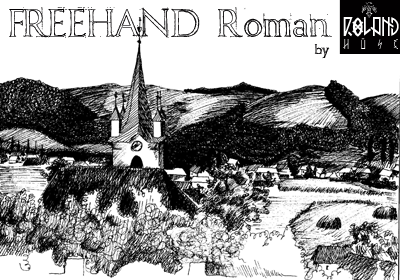
Preview and download Freehand Roman Font. Created by Runes & Fonts in Fancy Eroded styles with Free for personal use license.
FREEHAND ROMAN is a handdrawn Roman font I made as a homework back in 1994. Avasi High School. The font is free for personal use only. If you need extra character or numbers created,contact me at myhandwritings@gmail.com Also feel free to drop me a line in case of questions or feedback.Mostly in case of any problems with the characters, kerning, installation etc. That would also help me in my design work, and would be greatly appreciated! Roland Huse, http:www.myhandwritings.com http://www.rolandhuse.com Enjoy \m/ |